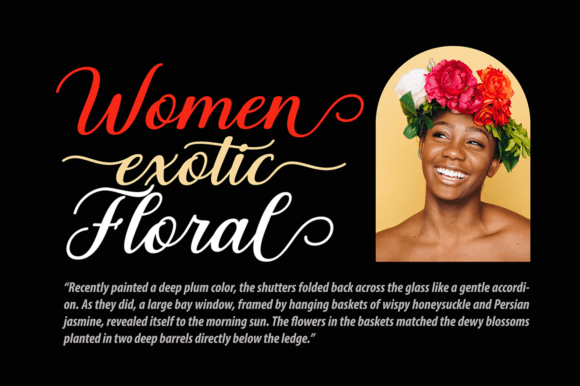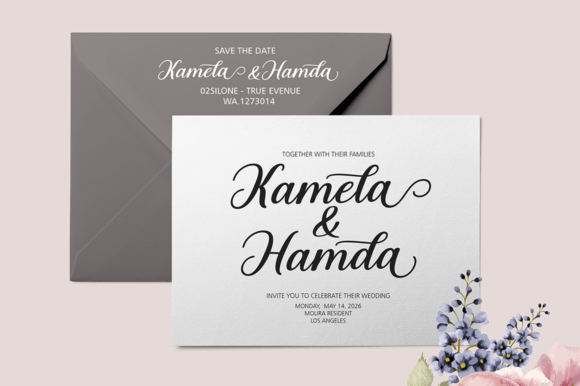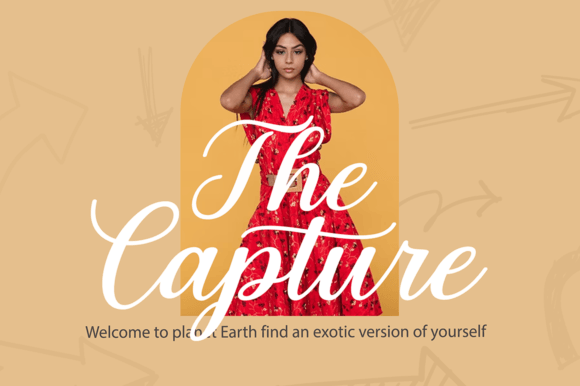
Introduction to Kesawan Font
Kesawan is a stunning and stylish handwritten font that brings an air of sophistication to any project.
With its graceful curves and flowing strokes, this font is perfect for branding, wedding invitations, and editorial design Its unique style and timeless elegance create a sense of luxury and refinement.
Key Features of Kesawan Font
Why Choose Kesawan Font?
Kesawan Font offers exceptional quality and versatility, making it a valuable addition to your design toolkit. Whether you’re creating for personal projects or commercial use, Kesawan Font delivers professional results.